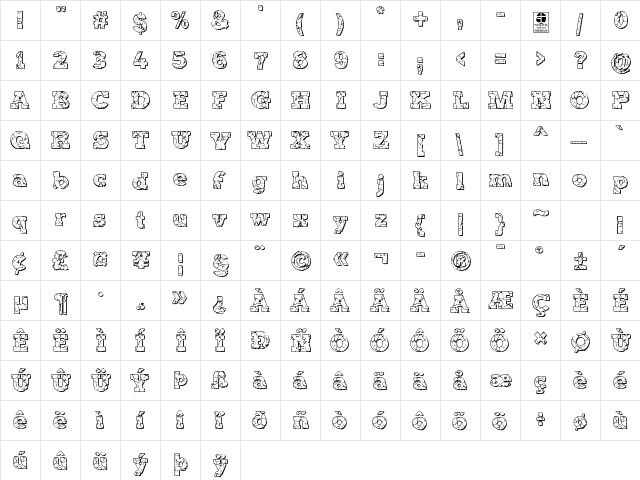
ROCK-ON Shadowed Demo Regular
| Foundry | StudioTypo |
| Designer | Mehmet Abac |
Design Context for ROCK-ON Shadowed Demo Typeface
ROCK-ON Shadowed Demo is built around its visual character rather than neutral utility — its distinctive forms are designed to make an impression at display sizes.
Font Pairing: Pair with a clean neutral sans-serif for body copy to let ROCK-ON Shadowed Demo's character lead without overwhelming the composition.
Pro Tip: Use ROCK-ON Shadowed Demo exclusively at display sizes — it was designed to be seen, not read at length. Let a neutral companion handle body copy.